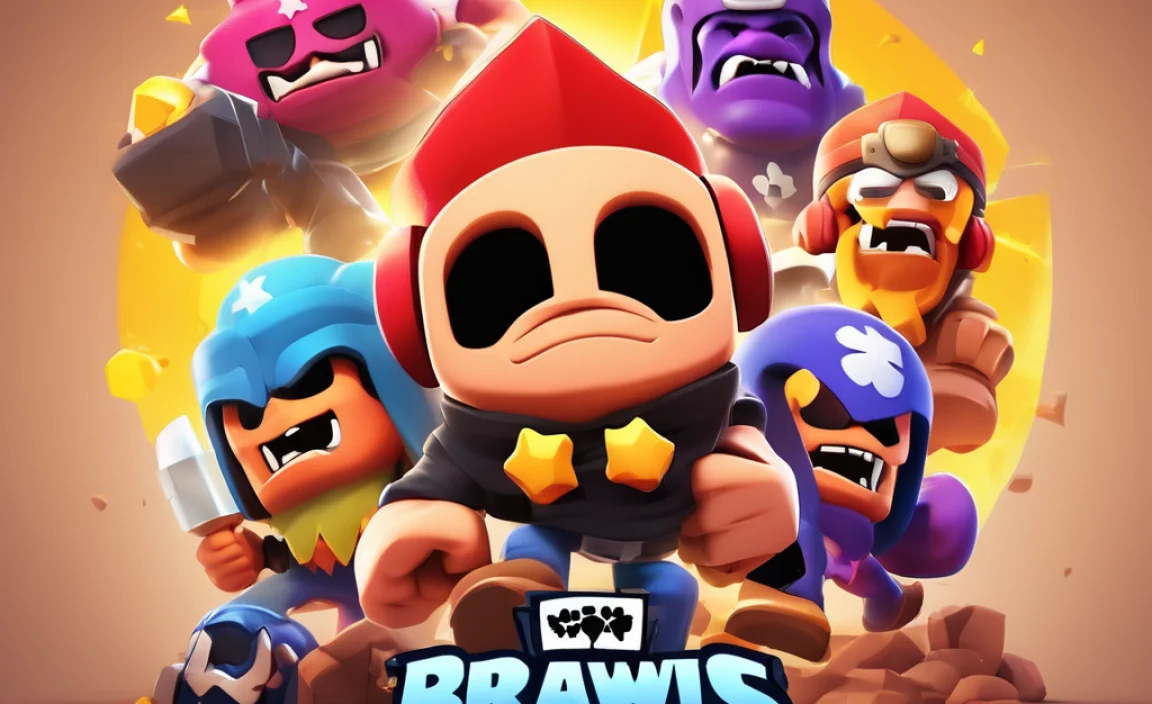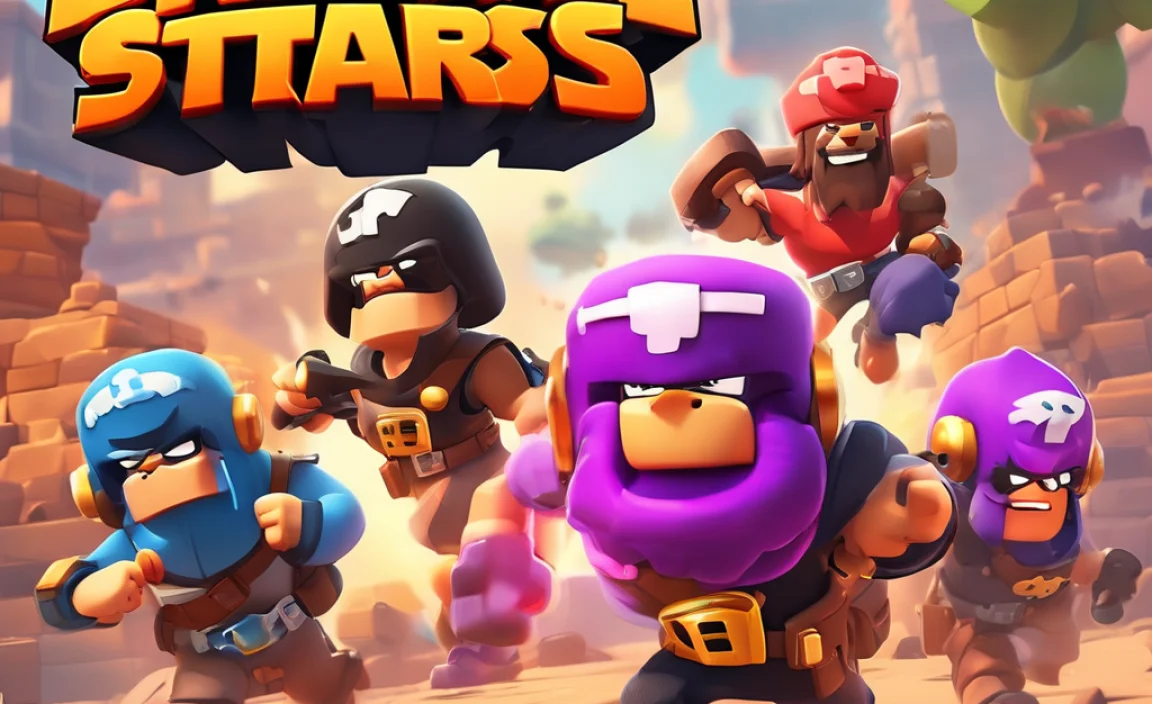
Have you ever seen cool text designs in games? These fonts can make words look exciting. One popular font comes from Brawl Stars. It grabs attention and stands out. But what makes Brawl Stars Font so special? Let’s explore its magic!
- Brawl Stars Font makes text look bold and exciting.
- It’s great for games and creative projects.
- You can find similar fonts for free online.
- Brawl Stars Font adds personality to your designs.
- Many designers love using Brawl Stars Font.
What Is Brawl Stars Font?
Brawl Stars Font is used in the popular game, Brawl Stars. It gives the game’s text a unique look. This font is bold and colorful. It makes the game titles pop. Many players love it because it adds excitement. The font is easy to read, even during fast gameplay. You might see it in other games or projects. Designers like to use it for its fun feel.
- Bold and colorful style.
- Easy to read during action.
- Used in Brawl Stars game.
- Popular with designers.
- Enhances game excitement.
Designers often choose this font to make words stand out. It’s great for creating catchy titles. It’s also used in logos and art. If you want to add fun to your project, try using this font. It can transform simple text into something amazing.
Fun Fact or Stats : Brawl Stars Font is inspired by comic books!
Why Do People Like It?
Why do people love Brawl Stars Font? It makes words look lively and fun! Kids and adults enjoy its bold style. Imagine writing your name in this font. It would look super cool! This font is not just for games. People use it in art or school projects. It adds some magic to letters. So next time you see it, you’ll know why it’s a favorite.
How Brawl Stars Font Compares To Others
Brawl Stars Font stands out from other fonts. It has a unique, bold style. This font is playful and fun. It’s perfect for games and creative designs. Other fonts might be plain, but this one catches the eye. Many designers choose it for its energetic feel. It makes words look alive and exciting. Let’s compare it to other popular fonts in a table!